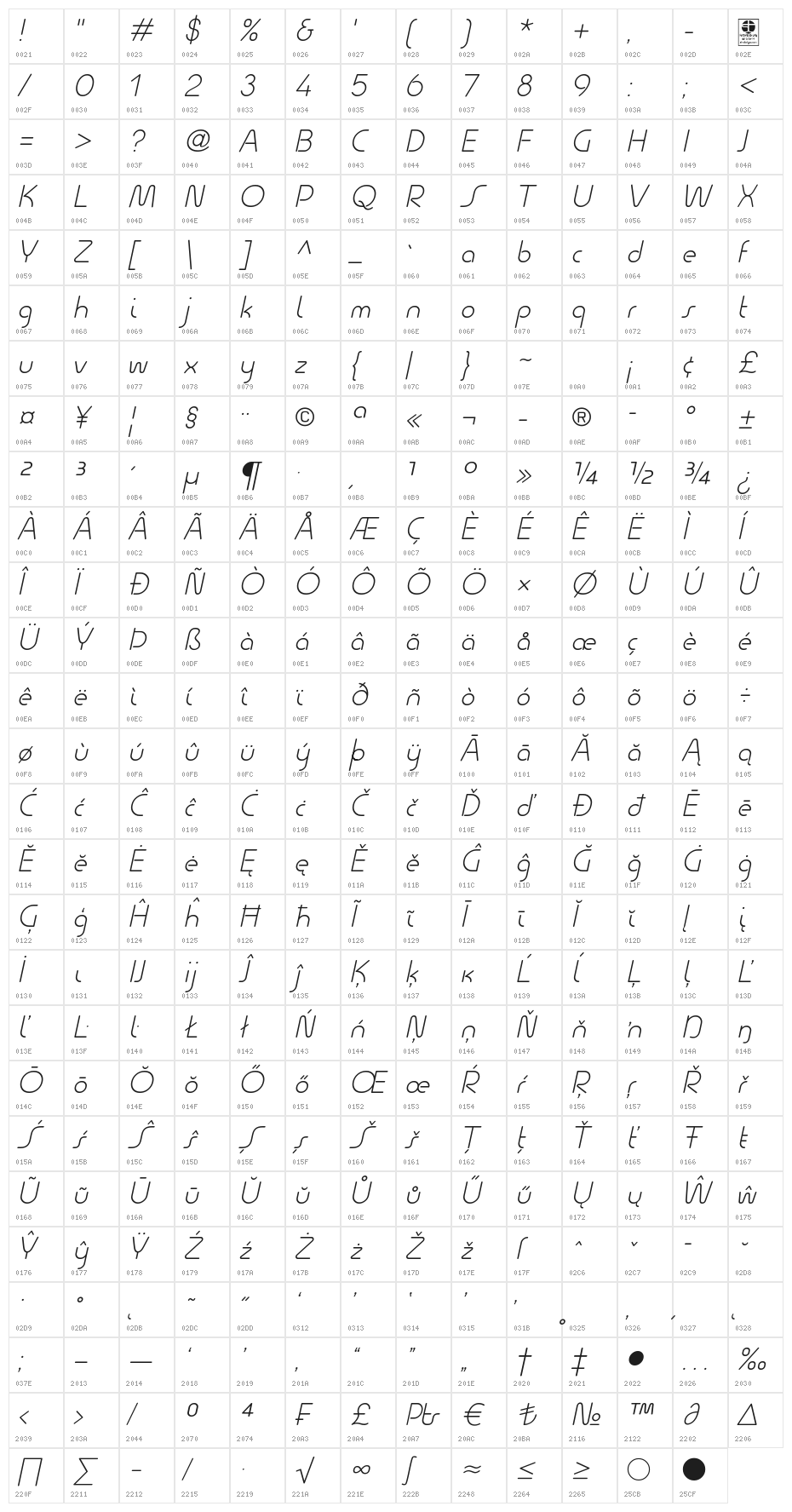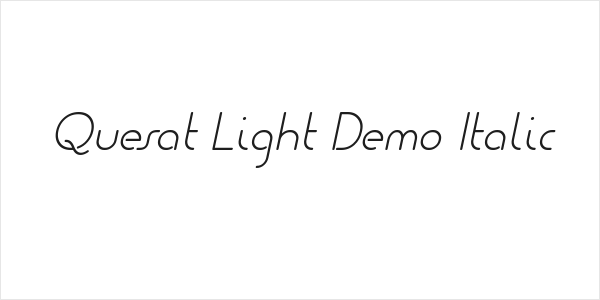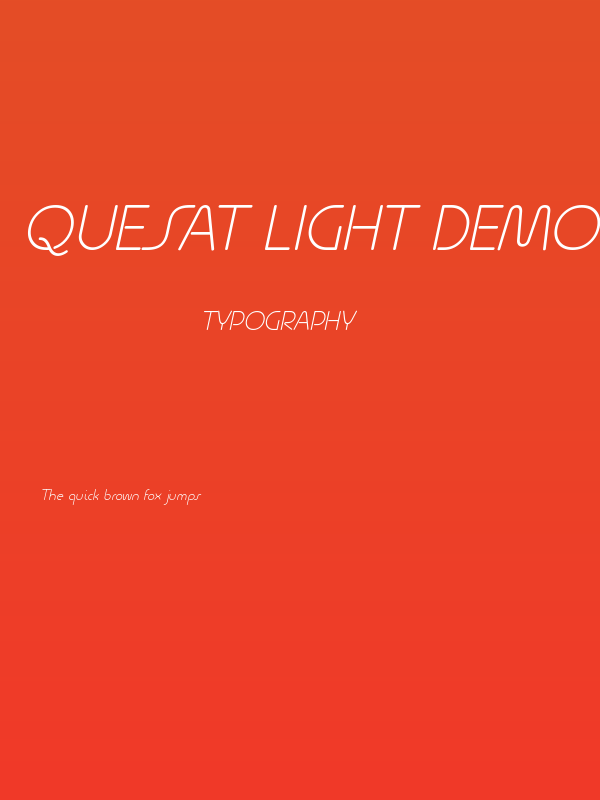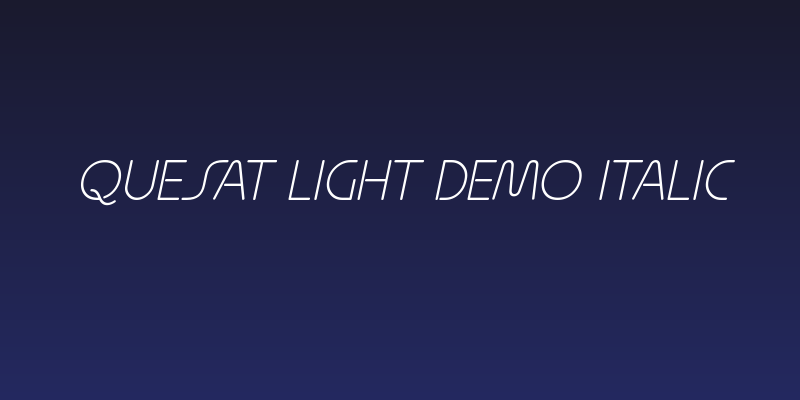
Quesat Light Demo Italic Font
Quesat Light Demo Italic Description
This font features a sleek, modern design with a light and airy feel. The characters are slightly italicized, giving them a dynamic and forward-leaning appearance. The strokes are consistent in weight, contributing to a clean and minimalistic aesthetic. The rounded edges of the letters add a touch of softness, while the overall structure maintains a geometric precision. This font is versatile, suitable for both digital and print media, and can be used to convey a sense of elegance and sophistication.
Proposed ProjectsIdeal for branding, editorial design, digital interfaces, and minimalist posters.